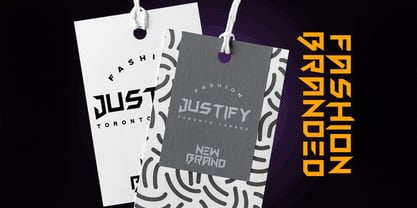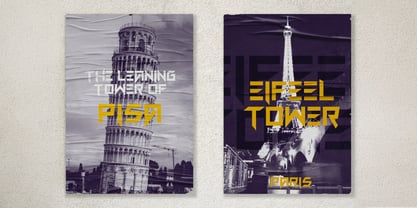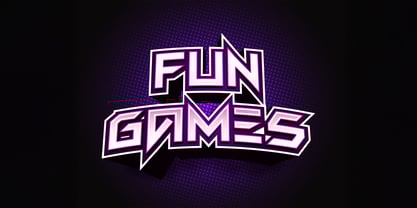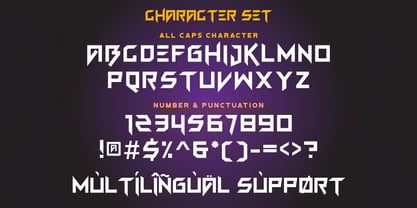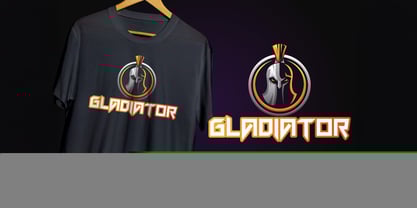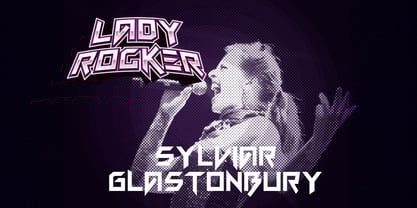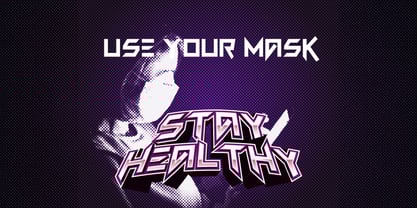
The Fun Games Font Family was designed by Virgiawan Listanto and published by Stringlabs Creative Studio. Fun Games contains 1 styles. More about this family
Fun Games is a modern futuristic font designed to captivate and energize. this font blends the essence of innovation and excitement, making it perfect for tech-inspired projects, gaming, and any design that calls for a contemporary edge.